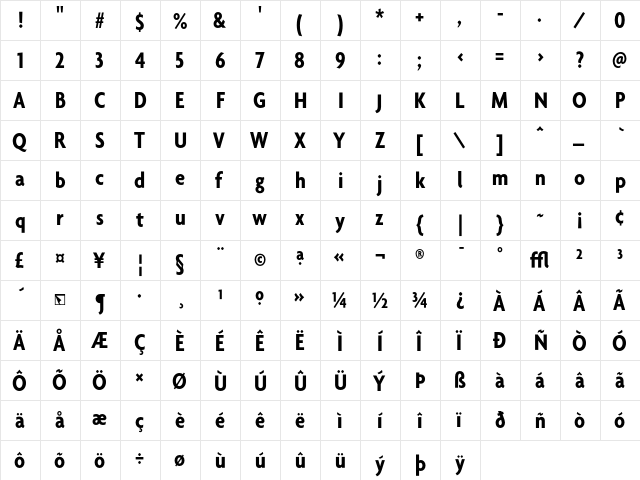
Agenda BoldCondensed
Design Context for Agenda Typeface
Agenda offers clean, dependable letterforms without strong stylistic allegiance, making it a practical choice for designers who need flexibility. The heavy weight commands attention and anchors typographic hierarchies. The condensed width makes it efficient for tight spaces without sacrificing legibility.